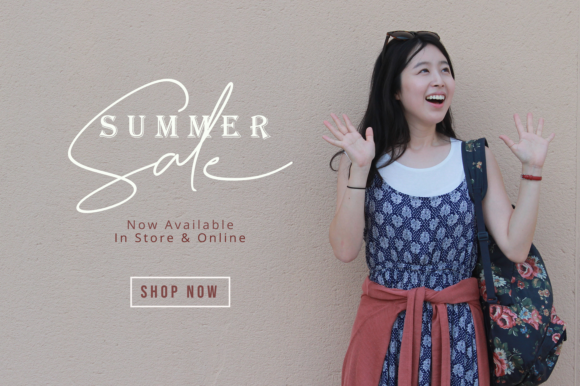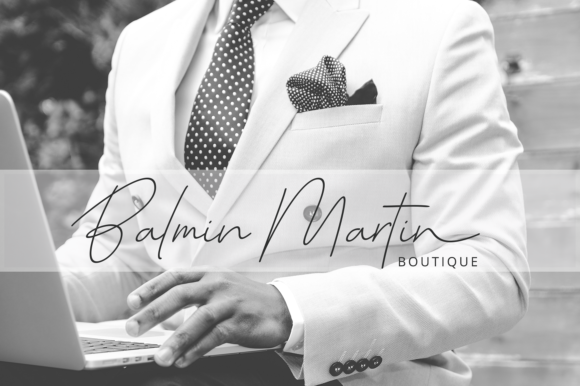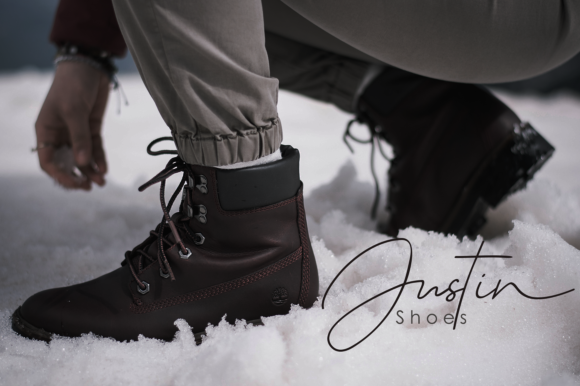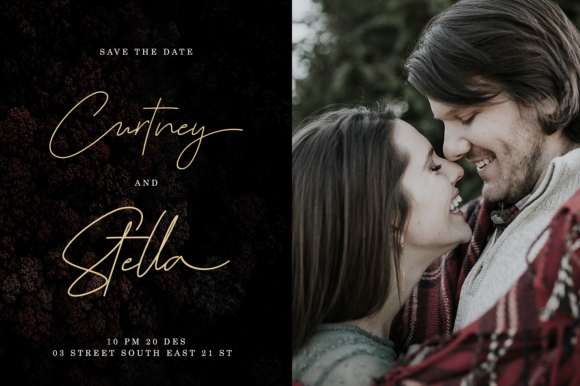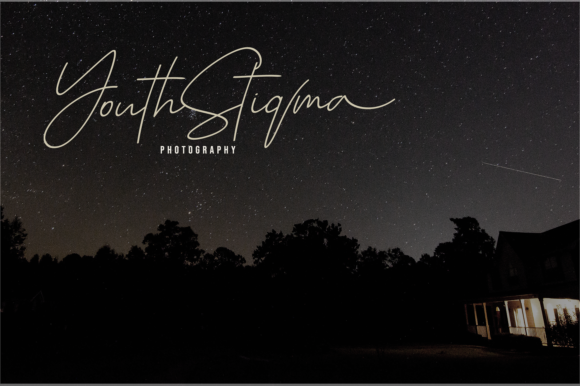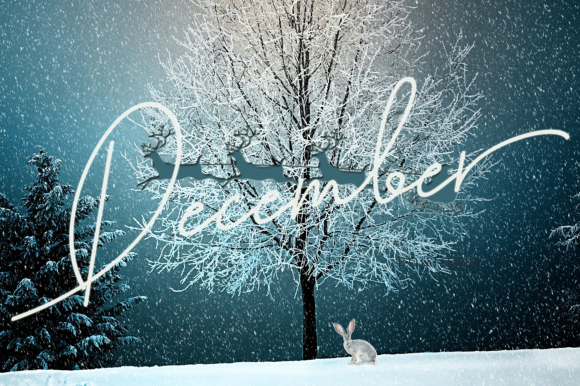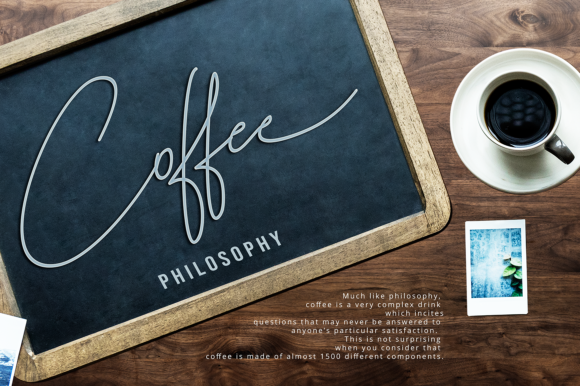
Cutyle Script Font
About Cutyle Script Font
Introducing The Cutyle, a monoline signature font that embraces a minimalist style, perfect for a range of applications including logos, branding, posters, headlines, magazines, books, business cards, and more.
The Cutyle’s monoline design brings a clean and contemporary look to your projects. The minimalist approach adds a touch of simplicity and sophistication, making it versatile for various design contexts.
For logos and branding, The Cutyle’s signature style imparts a personalized and distinctive touch, creating a memorable visual identity. In posters and headlines, its minimalist design contributes to a modern and sleek aesthetic. Magazines and books benefit from its clean lines, ensuring readability while maintaining a stylish appearance.
The adaptability of The Cutyle extends to business cards, where a minimalist signature font can add a touch of elegance to your contact information. Its versatility makes it suitable for a wide array of creative projects, allowing you to explore its potential in diverse design applications.
In summary, The Cutyle is more than just a font; it’s a design asset that brings a minimalist and contemporary signature style to your creative endeavors. Embrace its clean lines and simplicity, and let The Cutyle enhance your logos, branding, posters, headlines, and more with a touch of modern sophistication.